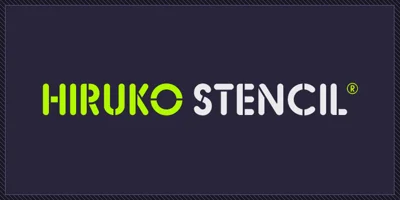
Hiruko Stencil Font
The Hiruko Stencil Font is a strikingly bold and industrial display typeface, characterized by its sharp, angular forms and iconic stencil cuts, evoking a strong, utilitarian, and modern aesthetic. Imagine its commanding presence dominating military-themed designs, adding an authentic, robust edge to construction company branding, or creating impactful titles for action movies and video games. Its robust construction and segmented appearance also make it an excellent choice for sports apparel, striking warning labels, urban street art-inspired graphics, and any design where a strong, no-nonsense, and highly visible statement is paramount. Whether you're aiming for a powerful, assertive look or a raw, unpolished aesthetic, Hiruko Stencil Font delivers with its unmistakable character, ensuring your visuals demand attention and convey a sense of strength and precision.
What makes Hiruko Stencil Font so exciting is its ability to instantly communicate a feeling of rugged durability and practical application. In a visual landscape often seeking impactful display fonts, this typeface stands out with its powerful visual presence and inherent legibility, even with its distinctive breaks. It's more than just a font; it's a design element that can instantly set a tone of industrial strength, security, or DIY authenticity. Hiruko Stencil Font offers designers the opportunity to create visuals that are both visually aggressive and remarkably clear, making it an invaluable asset for those looking to communicate a sense of power, raw energy, and a bold, functional style.
The Hiruko Stencil Font family is typically structured to offer a range of weights and styles that amplify its bold and impactful appeal. Beyond the primary Hiruko Stencil Regular typeface, you might find companion styles such as a more impactful Hiruko Stencil Bold for even stronger emphasis, or perhaps Hiruko Stencil Light for a slightly less imposing presence while maintaining its characteristic stencil cuts. The family may also include variations in width (e.g., Condensed or Extended) to maximize versatility in different layouts, or even solid (non-stencil) counterparts within the broader Hiruko family that can be used for body text or smaller applications that require coordination. These diverse family members provide designers with the flexibility to establish a clear typographic hierarchy and maintain a consistent, high-impact, and authentically industrial aesthetic across all elements of their project, from dominant headlines and logos to supporting graphic elements.
For projects demanding a bold, industrial, and powerfully assertive feel, consider the impactful Hiruko Stencil Font. It's an excellent choice to make your designs stand out with uncompromising strength and a distinctive edge.